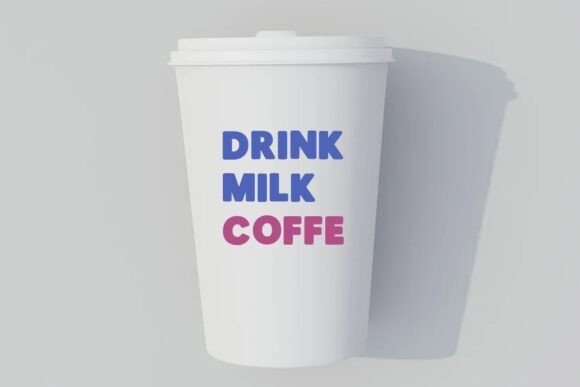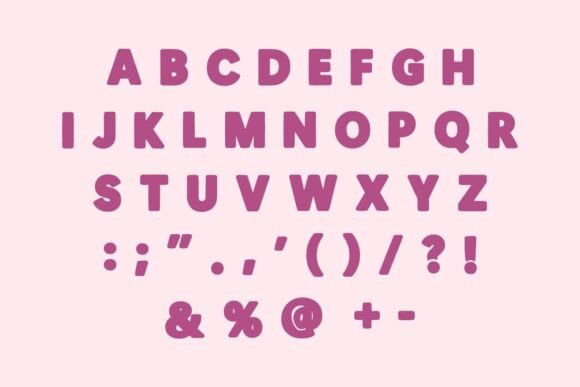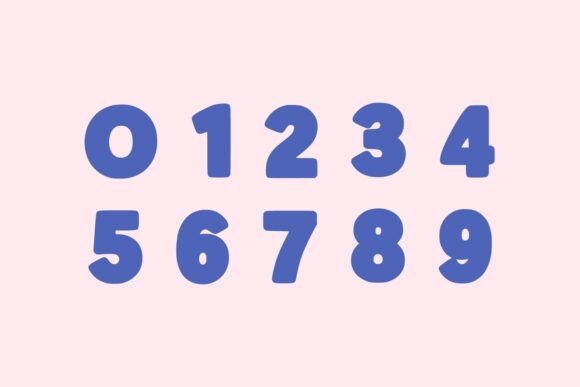
The Sweet Spot: Discovering Hello Candy Font
I’ll never forget the time I was working on a project for a children’s birthday party, and I just couldn’t find the right font to capture the playful vibe. The client wanted something that would make their little ones (and let’s be honest, the adults too) squeal with delight. That’s when I stumbled upon Hello Candy Font, and it was love at first sight! 💕
Hello Candy is a charming and cute bold font that exudes playfulness! Its soft curves and bold appearance are perfect for creating eye-catching headlines, posters, social media graphics, and branding. In this article, we’ll dive into the world of Hello Candy Font, exploring its features, how to use it, and some similar fonts you might love.
An Honest Review: The Good and the Quirky
- ✨ Playful and fun: Hello Candy Font is perfect for designs that need a dash of whimsy and playfulness.
- ✅ Easily readable: Despite its bold and curly nature, Hello Candy Font is surprisingly easy to read, even in smaller sizes.
- 💫 Versatile: This font can be used for a wide range of projects, from kids’ party invites to social media graphics and branding.
- 🤔 Limited use in formal designs: Hello Candy Font is best suited for informal and playful designs. It might not be the best choice for formal or professional projects.
- ⚠️ Some letter spacing issues: In certain situations, the letter spacing can get a bit wonky. Just a heads up to keep an eye on it when you’re designing.
Hello Candy Font was designed with one goal in mind: to bring a smile to your face. Its creator, a talented type designer, was inspired by childhood memories of trick-or-treating and collecting candy. The result is a font that’s equal parts playful, fun, and delightful.